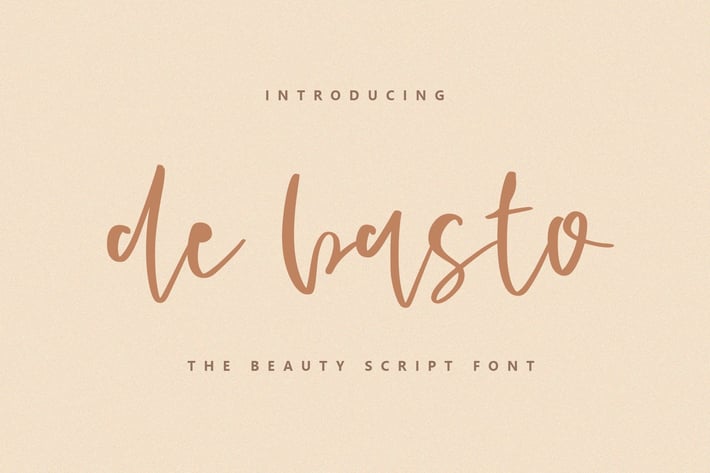
De Basto - A Beauty Script Font
Introducing De Basto - A Beauty Script Font. It comes with an elegant and feminine style which is perfect to make any design stand out! This font is perfect for branding, wedding invites, magazines, mugs, business cards, quotes, posters, and more.
De Basto Type Features:
- Numerals & Punctuations
- Suitable for Headlines, Logotypes, Signs, Posters, Letterhead, T-Shirt and many more.